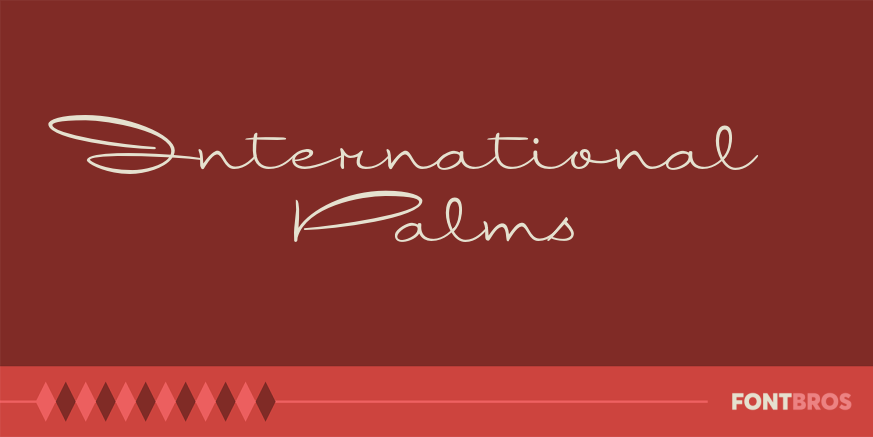
International Palms
Font Family by Font Diner
Luxury has a new name, International Palms! This elegant retro script is low and wide and ready for its California desert penthouse.